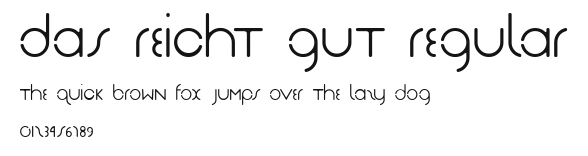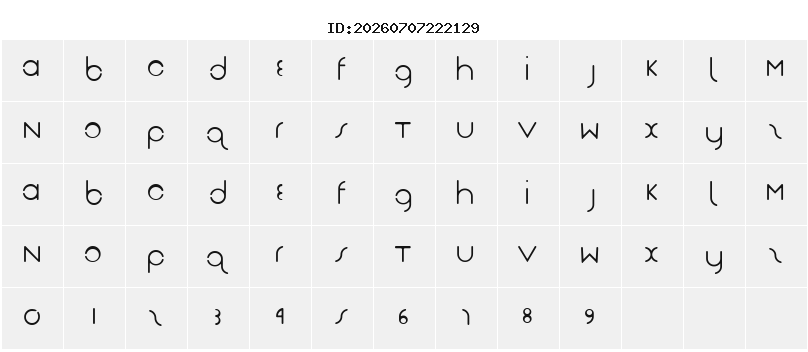
Das Reicht Gut Regular Preview
• Font Name: Das Reicht Gut Regular
• Full Font Name: Das Reicht Gut Regular
• Copyright: Copyright 1997 - Matt Perkins - I found a type sample of something like this from 1929 by Jan Tschichold - This is good enough. hfaze@vnet.net
About Das Reicht Gut Regular.ttf
Das Reicht Gut Regular.ttf is a modern, elegant sans-serif font designed for ultimate readability and visual harmony. Perfect for branding, headlines, web design, and print materials.